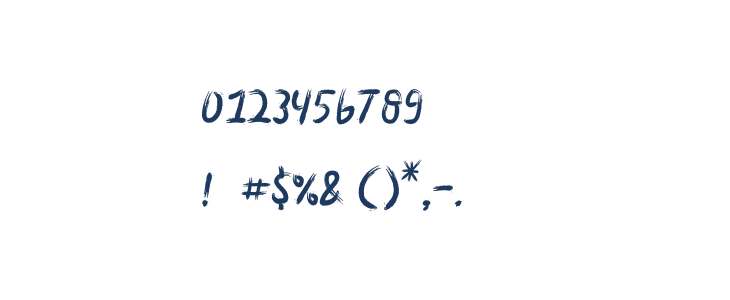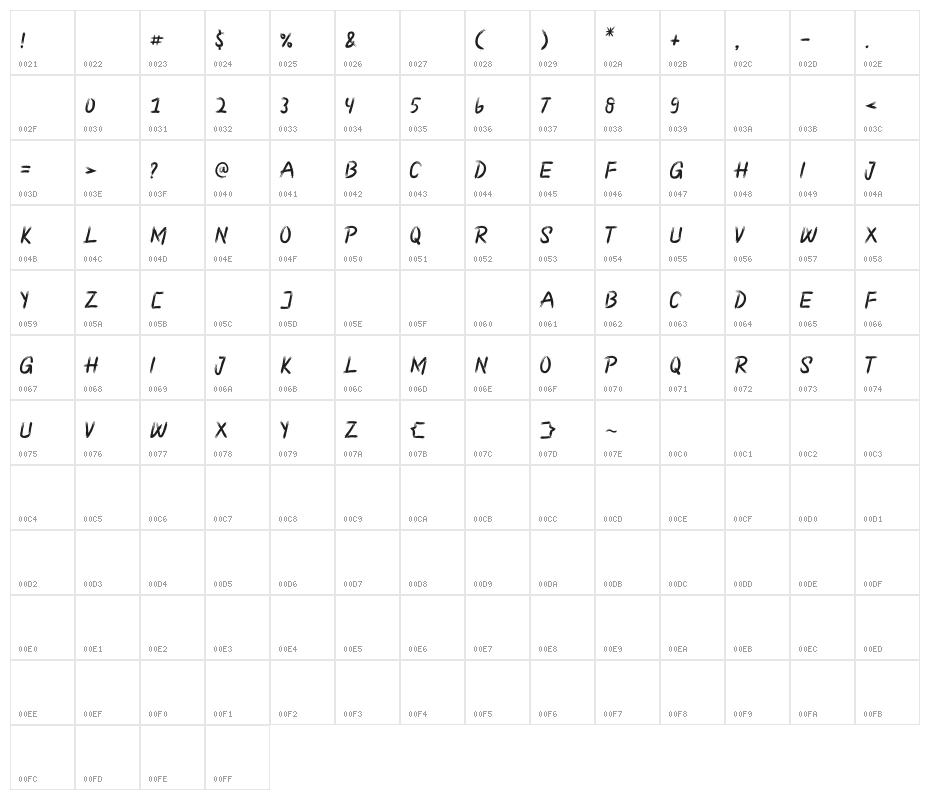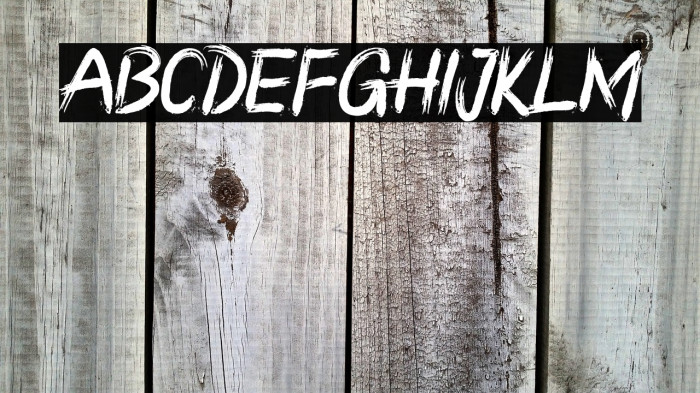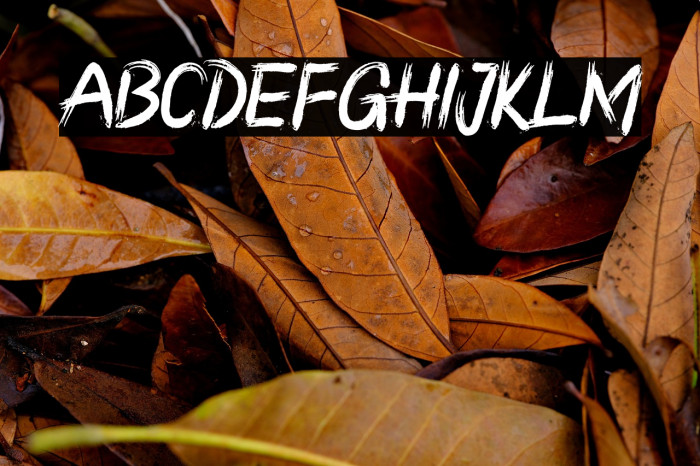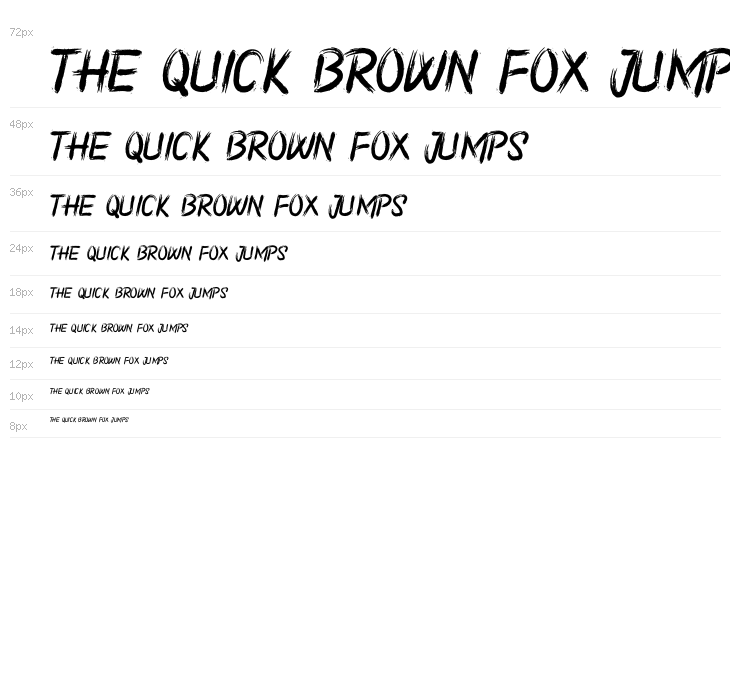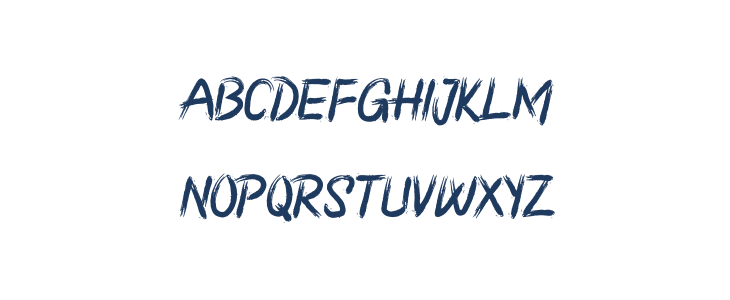
RONGGOLAWE Font
RONGGOLAWE Description
This font features a dynamic and energetic brush style, characterized by its bold and expressive strokes. The letters have a hand-painted appearance, with irregular edges and varying thickness that give it a raw, artistic feel. The uppercase and lowercase letters maintain a consistent style, while the numerals and special characters blend seamlessly with the overall design. The font's unique texture and movement make it stand out, providing a sense of creativity and spontaneity.
| Proposed Projects | Ideal for artistic projects, posters, album covers, and branding that requires a bold, creative touch. |